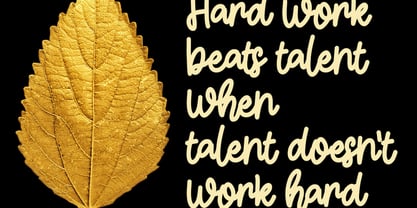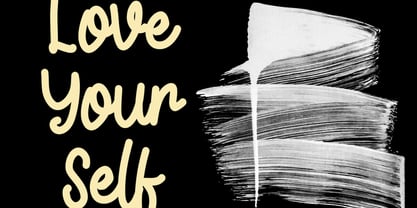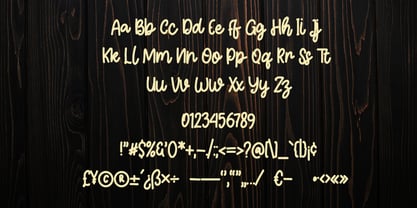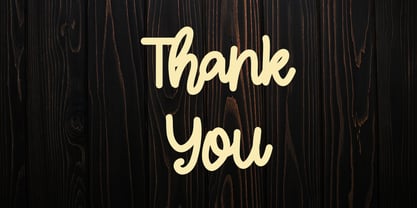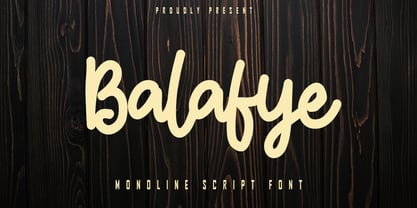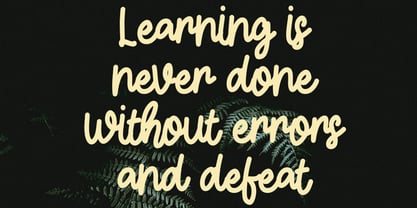
Balafye
by Skiiller Studio
The Balafye Font Family was designed by Irfan Mahmudin and published by Skiiller Studio. Balafye contains 1 styles.
Balafye is a smooth and modern monoline script font that brings a warm, friendly, and handcrafted touch to any design. Its clean curves and flowing strokes create a natural handwritten look, perfect for branding, logos, product packaging, invitations, quotes, and social media designs. With its soft and approachable style, Balafye adds personality and charm to both professional and creative projects.
Designers: Irfan Mahmudin
Publisher: Skiiller Studio
Foundry: Skiiller Studio
Design Owner: Skiiller Studio